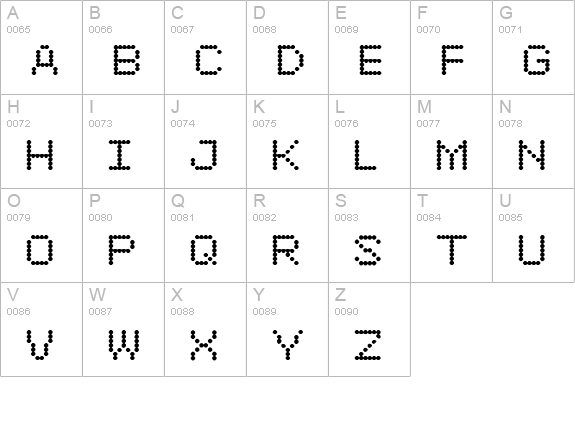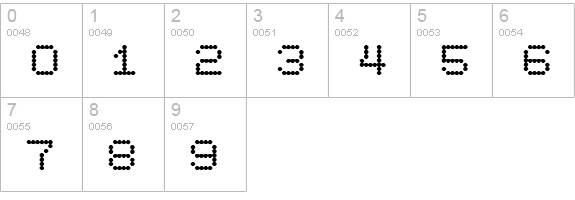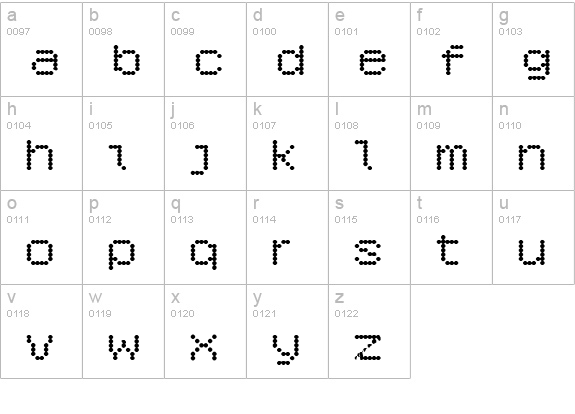
6x7oct ExtraBold is an extra-heavy, attention-grabbing variant in the 6x7oct typeface family \xE2\x80\x94 well suited to high-impact headlines, posters, and bold branding.
The 6x7oct ExtraBold font is a bold and impactful typeface that demands attention with its strong, geometric shapes and thick strokes. Perfect for making a statement in headlines, titles, and other display text, this font exudes confidence and modernity. Its tall letterforms and wide spacing make it ideal for creating eye-catching designs that stand out from the crowd. Best of all, the 6x7oct ExtraBold font is available for free download at FontsMarket.com. Whether you're a designer looking to add a bold touch to your projects or a business owner seeking a striking font for branding materials, this typeface is a versatile choice that won't break the bank. Download it today and unleash the power of 6x7oct ExtraBold in your designs!